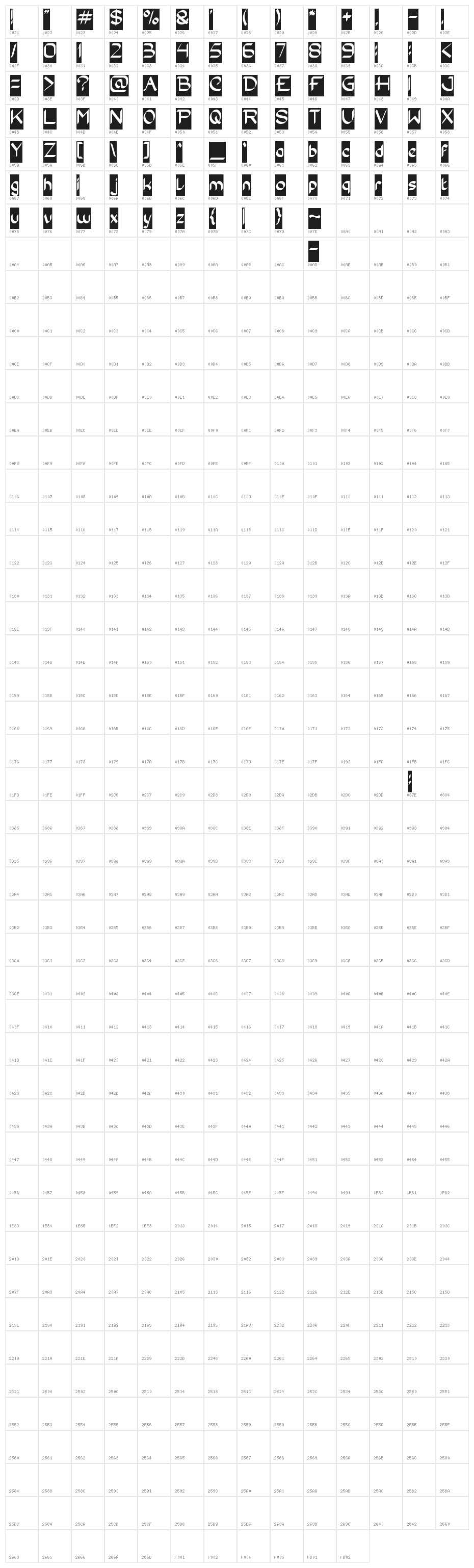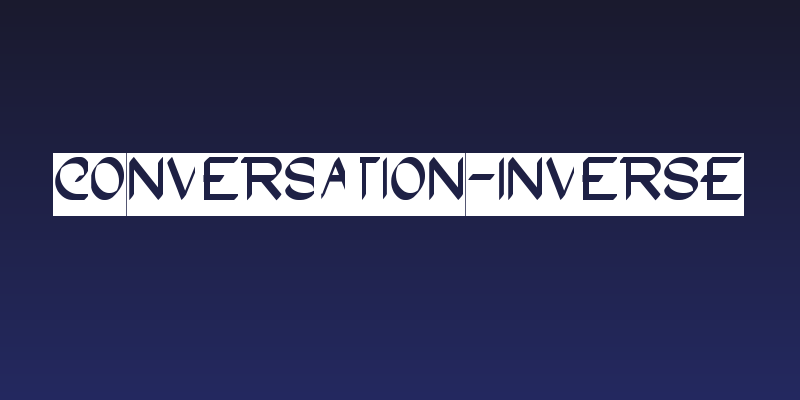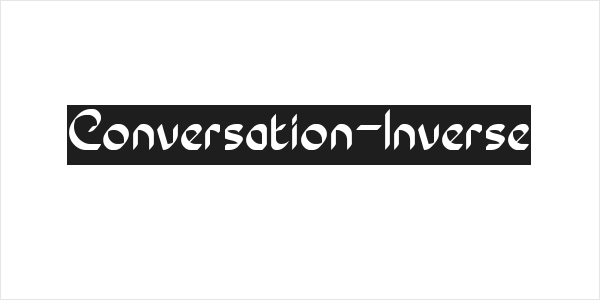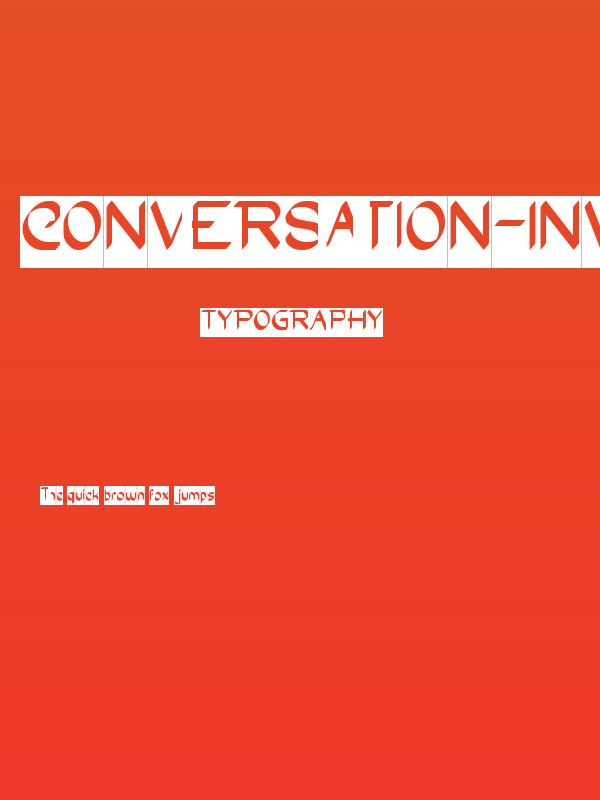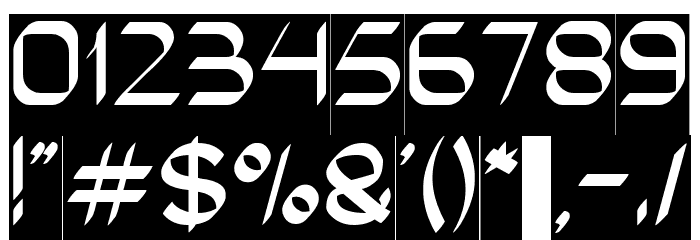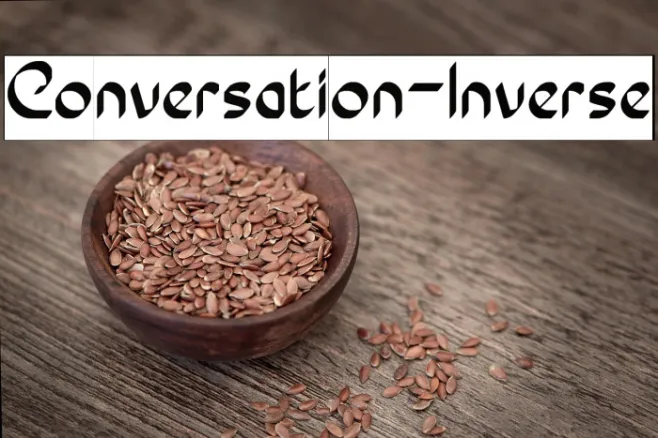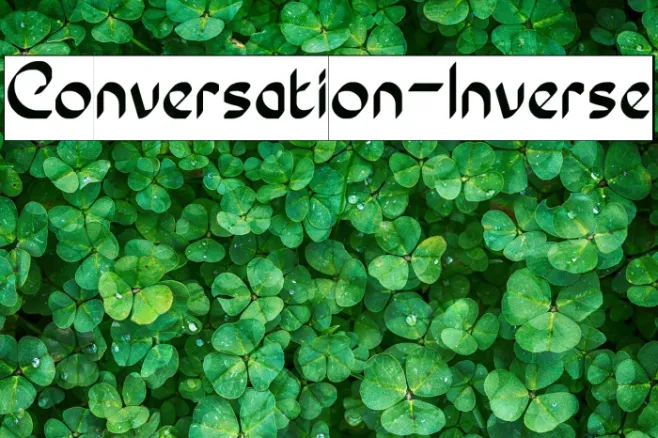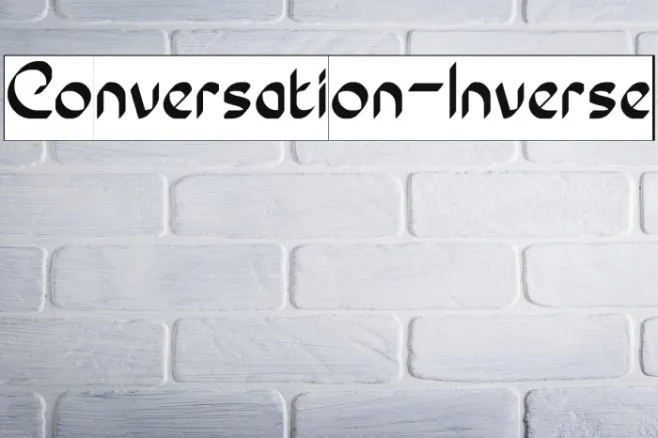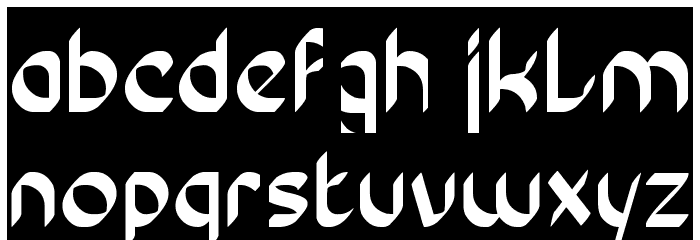
Conversation-Inverse Font
Conversation-Inverse Description
This font features a bold and futuristic design with sharp angles and geometric shapes. The uppercase letters are distinct with a mix of straight lines and curves, creating a dynamic and modern appearance. The lowercase letters maintain a similar style, offering a cohesive look across different text cases. Numbers and special characters are designed to match the overall aesthetic, ensuring consistency. The font's unique style makes it stand out, suitable for projects that require a contemporary and edgy feel.